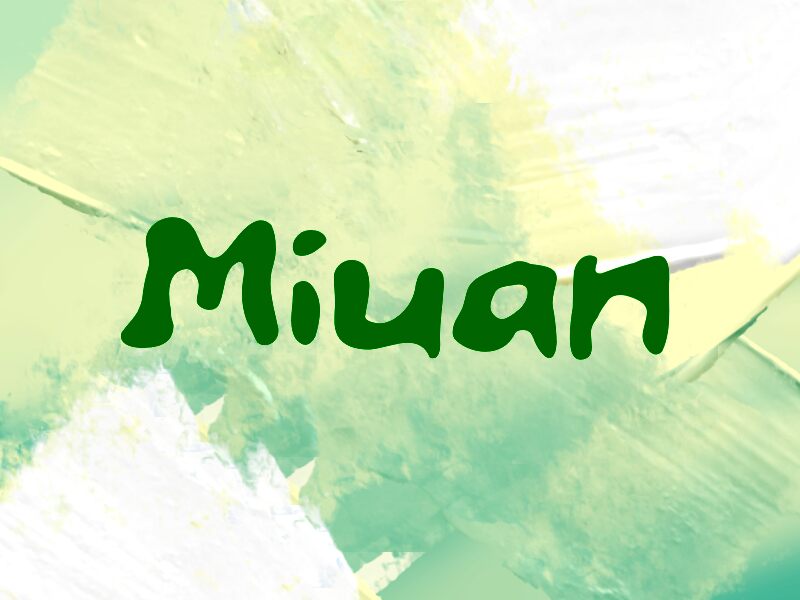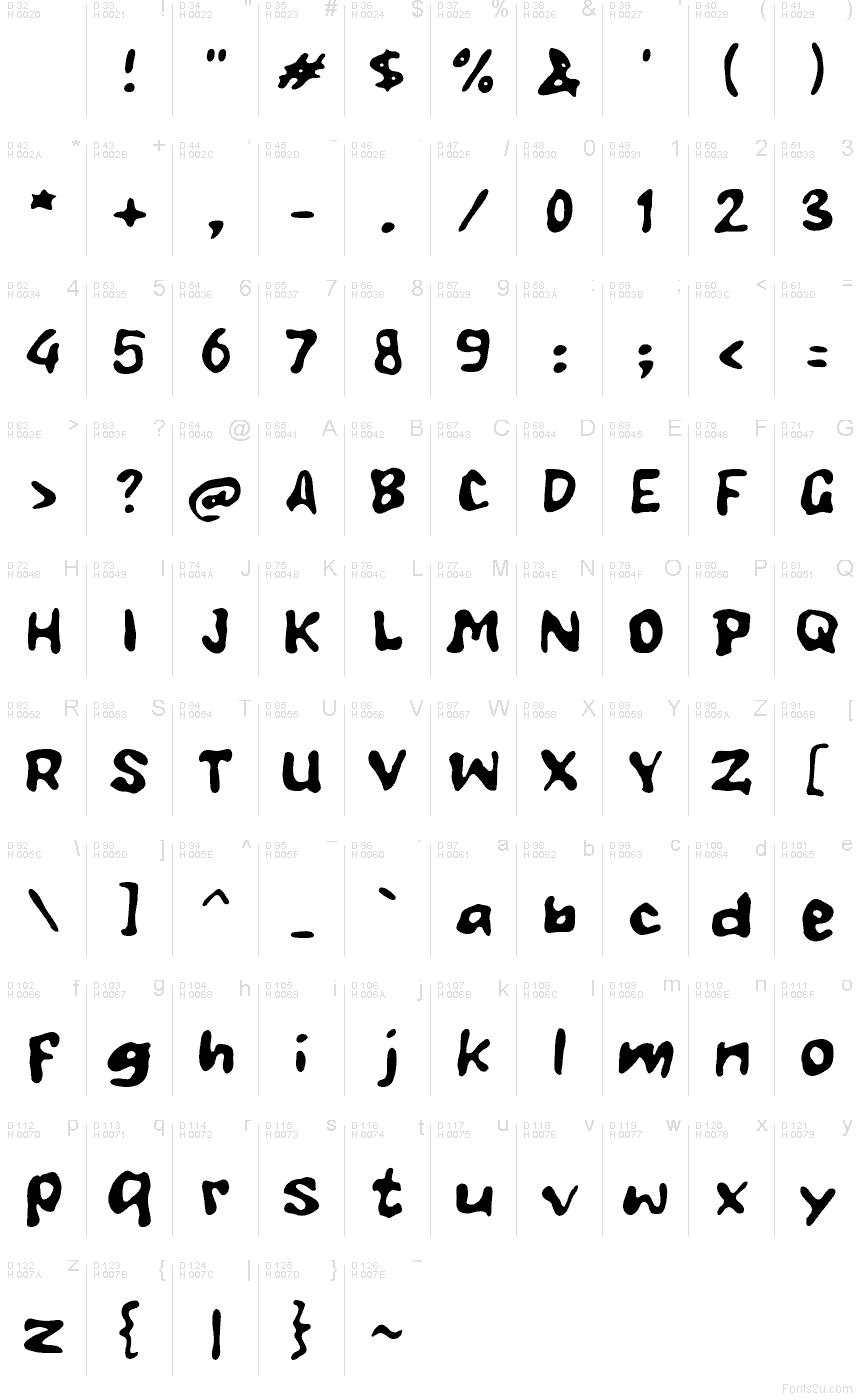
Miuan by Wep is a free melted display font with a soft, hand-pushed wobble. The letters look bulbous and liquid, with rounded edges, drooping joins, and uneven rhythm that gives the whole font a playful, slightly surreal pull.
It fits posters, album art, streetwear graphics, title cards, zine covers, and short packaging names where the shapes can do the talking. As a free font, Miuan works best in brief display settings, because those sagging, puddled forms make even a short word feel animated and a little strange.